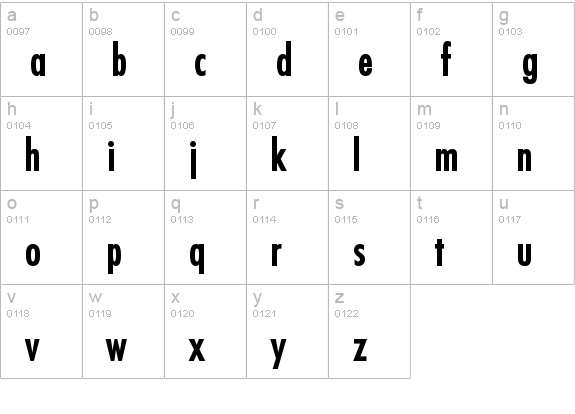
Fuji Bold is a strong, high-contrast variant in the Fuji typeface family \xE2\x80\x94 well suited to headlines, attention-grabbing titles, and strong calls-to-action.
Fuji Bold font is a modern and versatile typeface that exudes strength and sophistication. Its bold and eye-catching design makes it perfect for headlines, branding, and design projects that require a strong visual impact. The clean lines and sharp edges of Fuji Bold font give it a contemporary and edgy feel, making it a popular choice among designers and creatives. What makes Fuji Bold font even more appealing is that it is available for free download at FontsMarket.com. This means that you can easily access this stylish and impactful font without any cost. Whether you are working on a professional project or a personal creative endeavor, Fuji Bold font is sure to elevate your designs and make a lasting impression. Download Fuji Bold font today and add a touch of boldness to your typography!